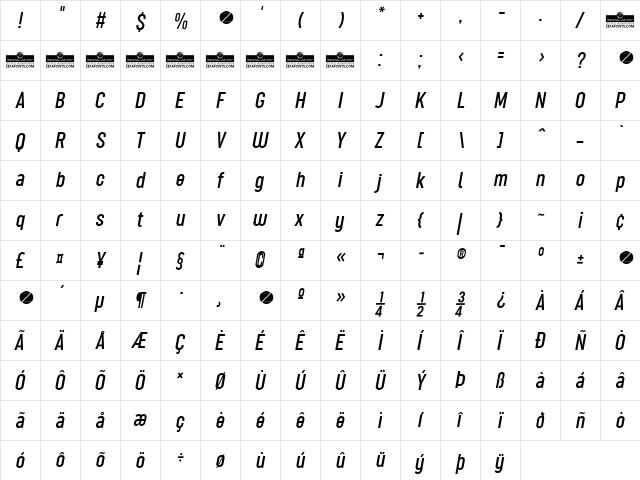
Sugo Pro Classic Trial Light Italic Font Preview
Design Context for Sugo Pro Classic Trial Typeface
Sugo Pro Classic Trial wears its vintage influences proudly, with letterforms that recall mid-century signage, classic packaging, and nostalgia-driven design. The slanted form adds forward momentum and visual energy. Its slender proportions lend an understated elegance to any composition.
Font Pairing: Combine Sugo Pro Classic Trial with a simple slab or neutral sans — period-accurate companions reinforce the vintage feel without competing for attention.
Pro Tip: Use Sugo Pro Classic Trial for headlines and pull quotes rather than body copy — its personality is best appreciated in short, focused bursts.